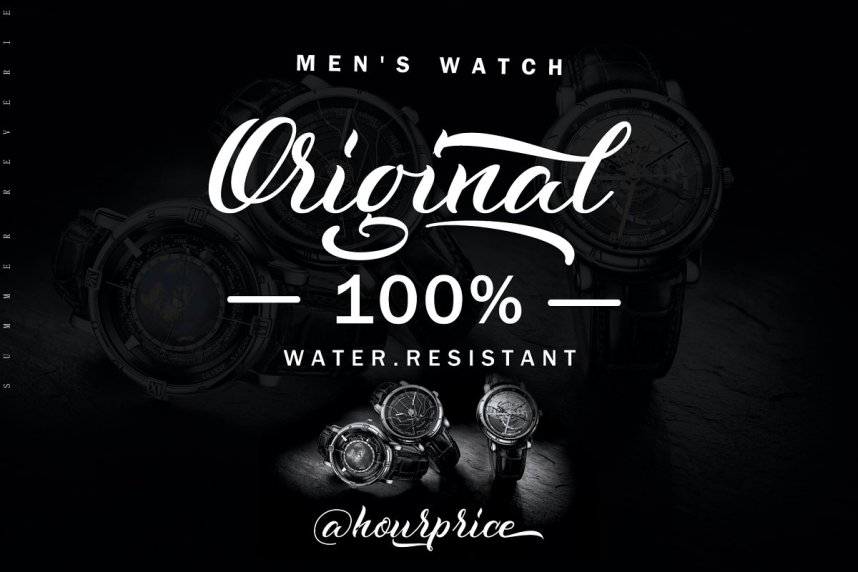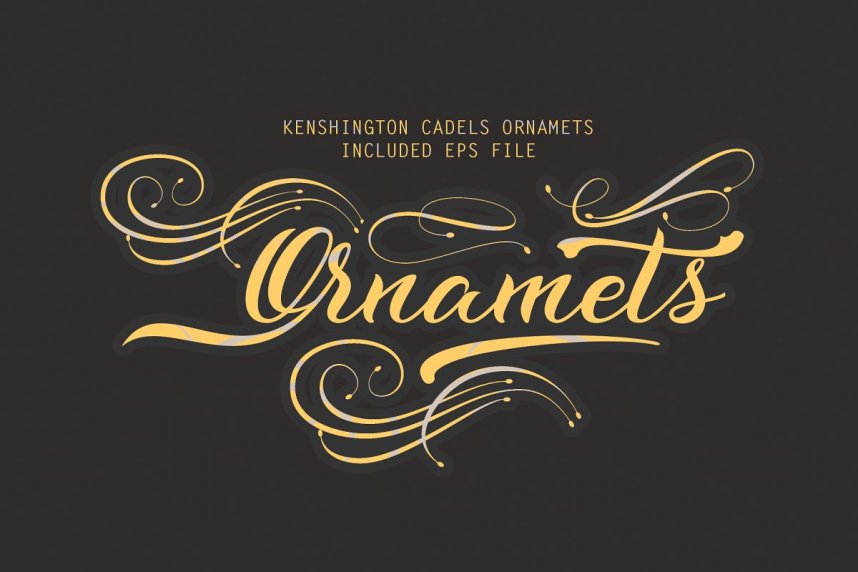
Kensington Calligraphy Font
Take a look this fonts. Give your designs an authentic handcrafted feel. Introducing Kensington Font. Kenshington is retro signage font, bold and clean. This font is suitable for t-shirts, signage, logos, headlines, branding, packaging, etc.